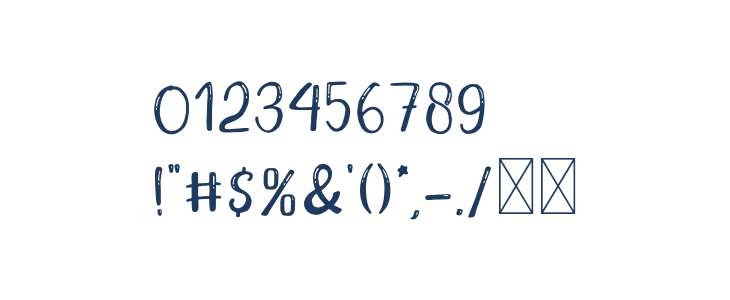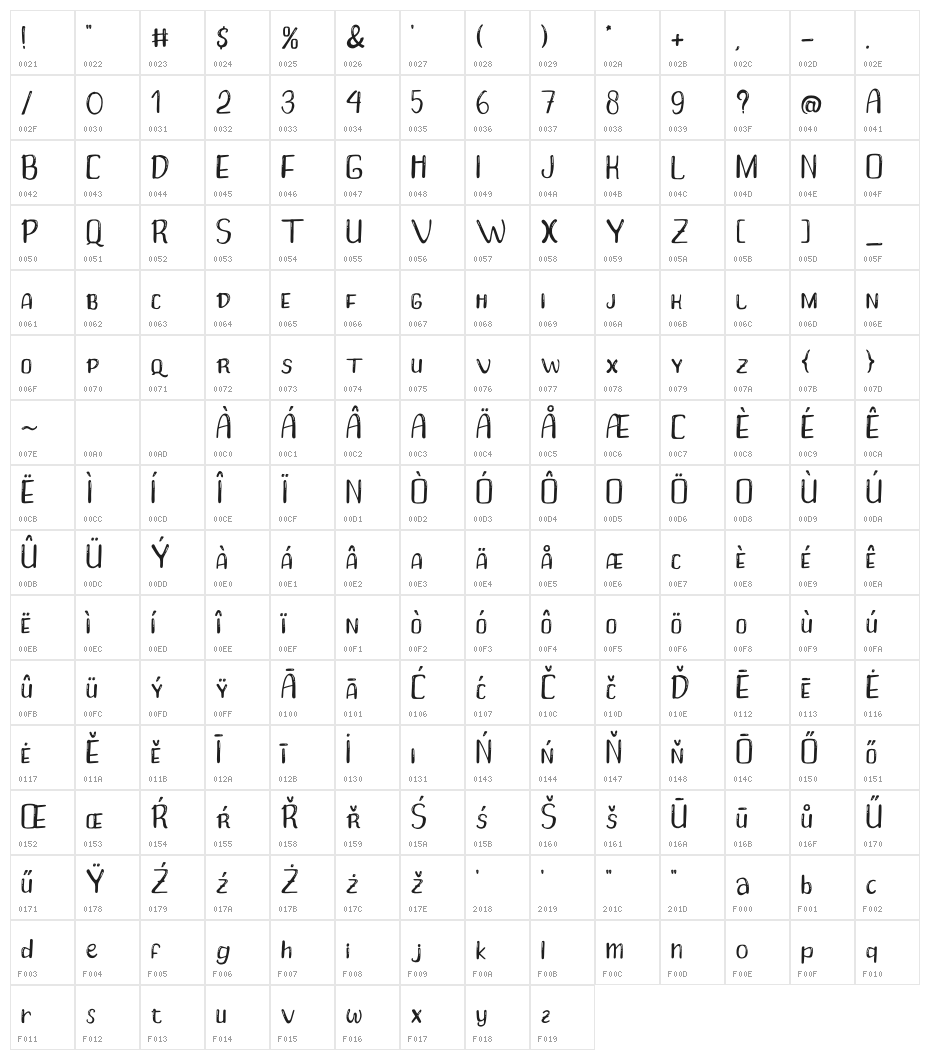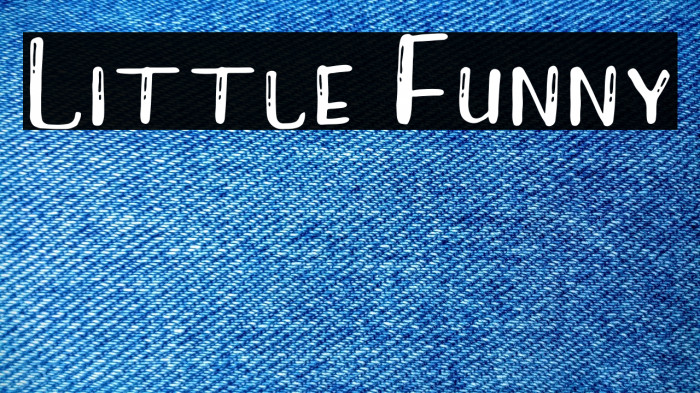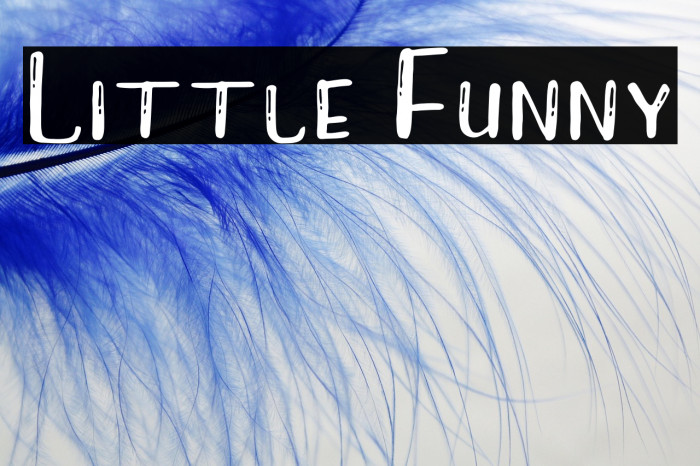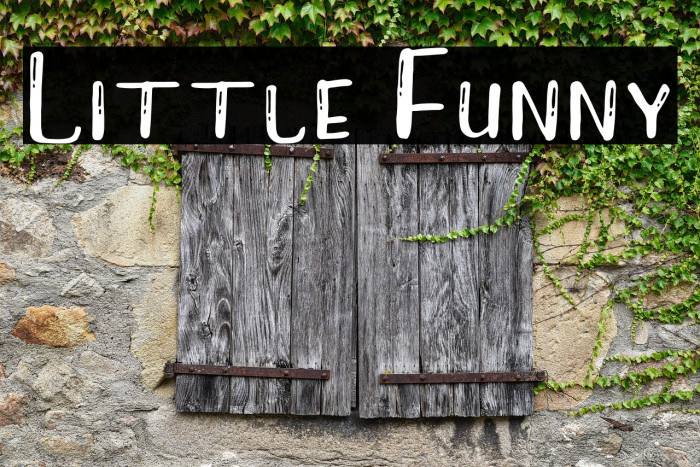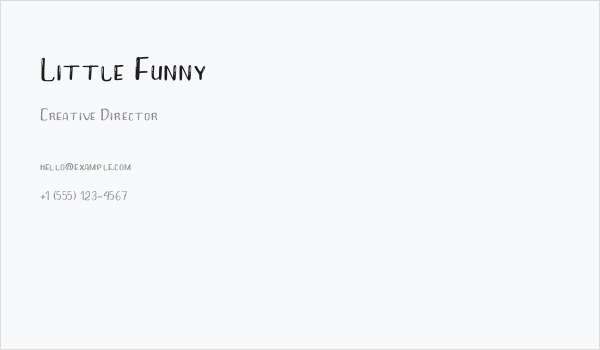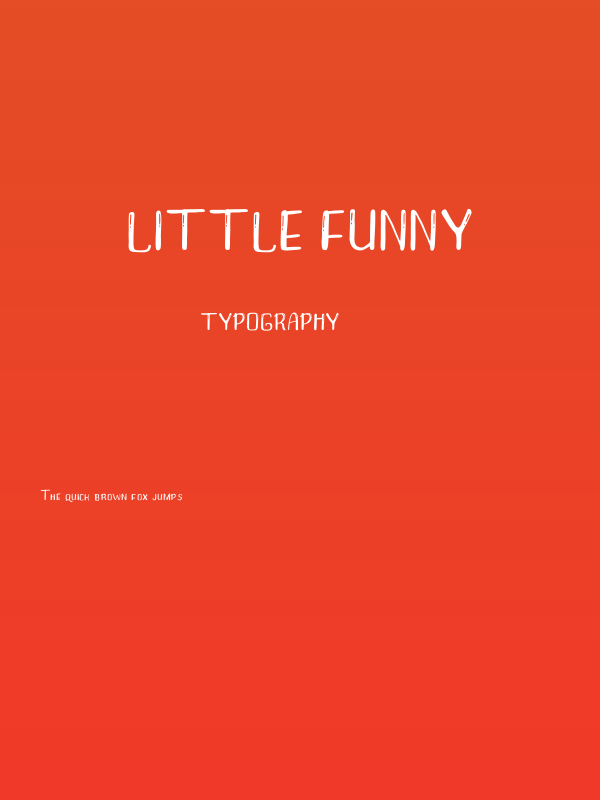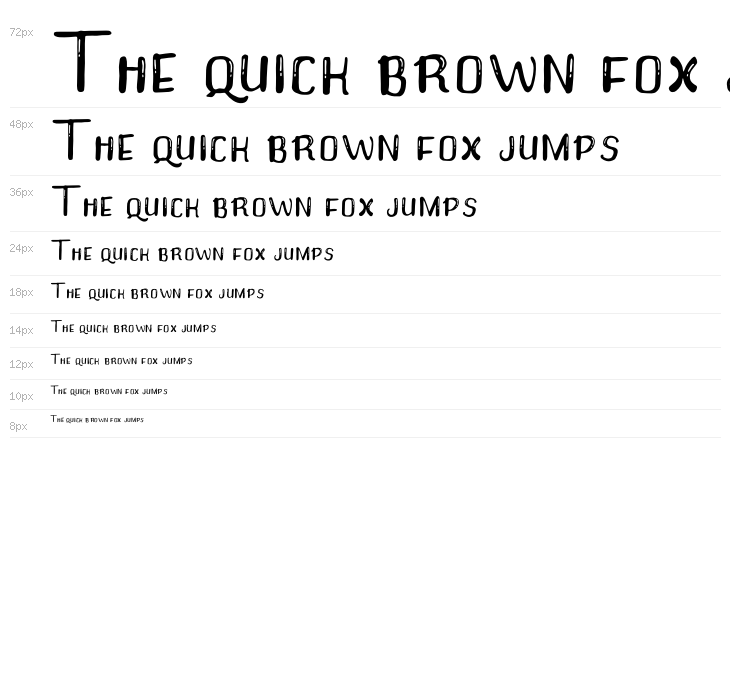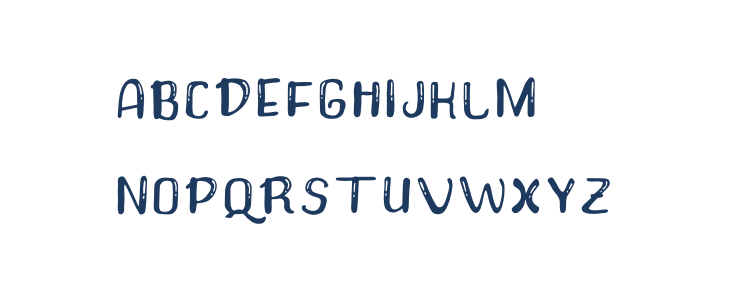
Little Funny Font
Little Funny Description
This playful and whimsical font features a hand-drawn style with uneven strokes and a casual appearance. The letters have a slightly irregular shape, giving them a charming and approachable feel. The uppercase and lowercase characters maintain a consistent style, with rounded edges and a friendly demeanor. The numbers and special characters follow the same playful design, making the font versatile for various creative projects. Its unique style is perfect for adding a touch of fun and personality to any design.
| Use Case | Logos, Posters, Greeting Cards |
| Proposed Projects | Ideal for children's books, playful branding, greeting cards, and creative posters. |